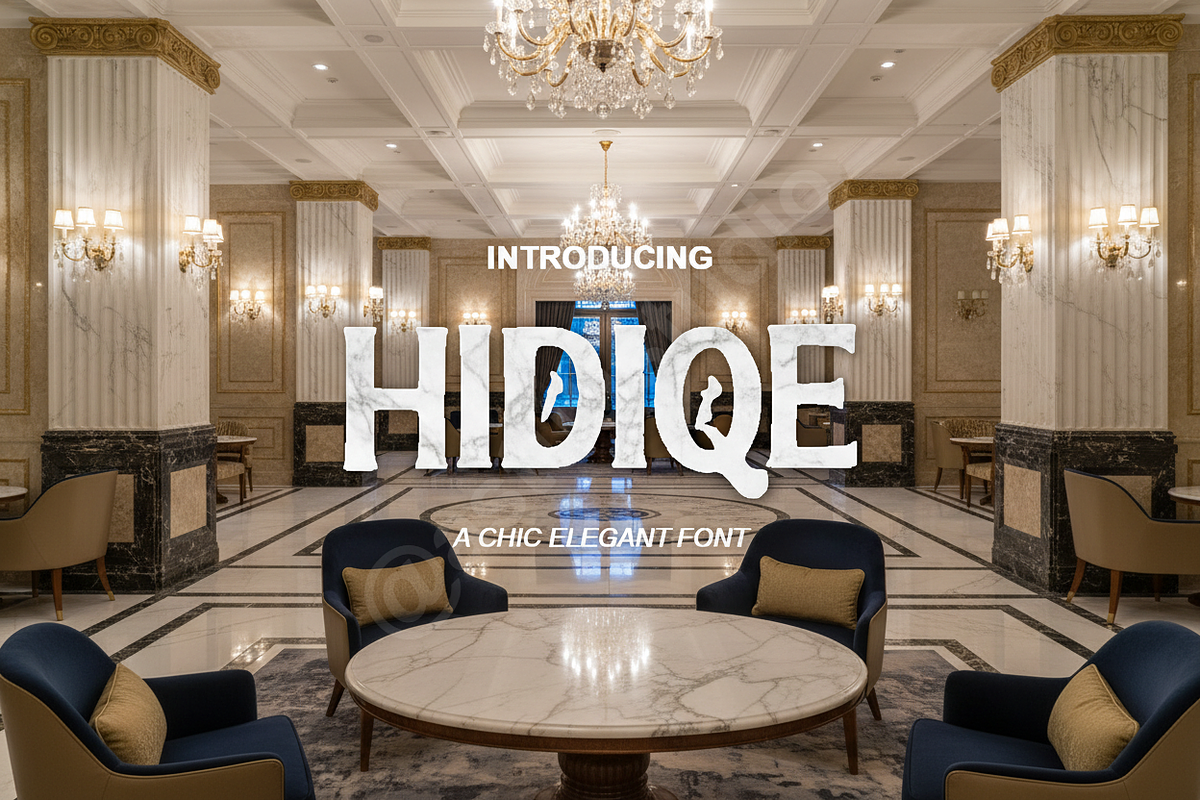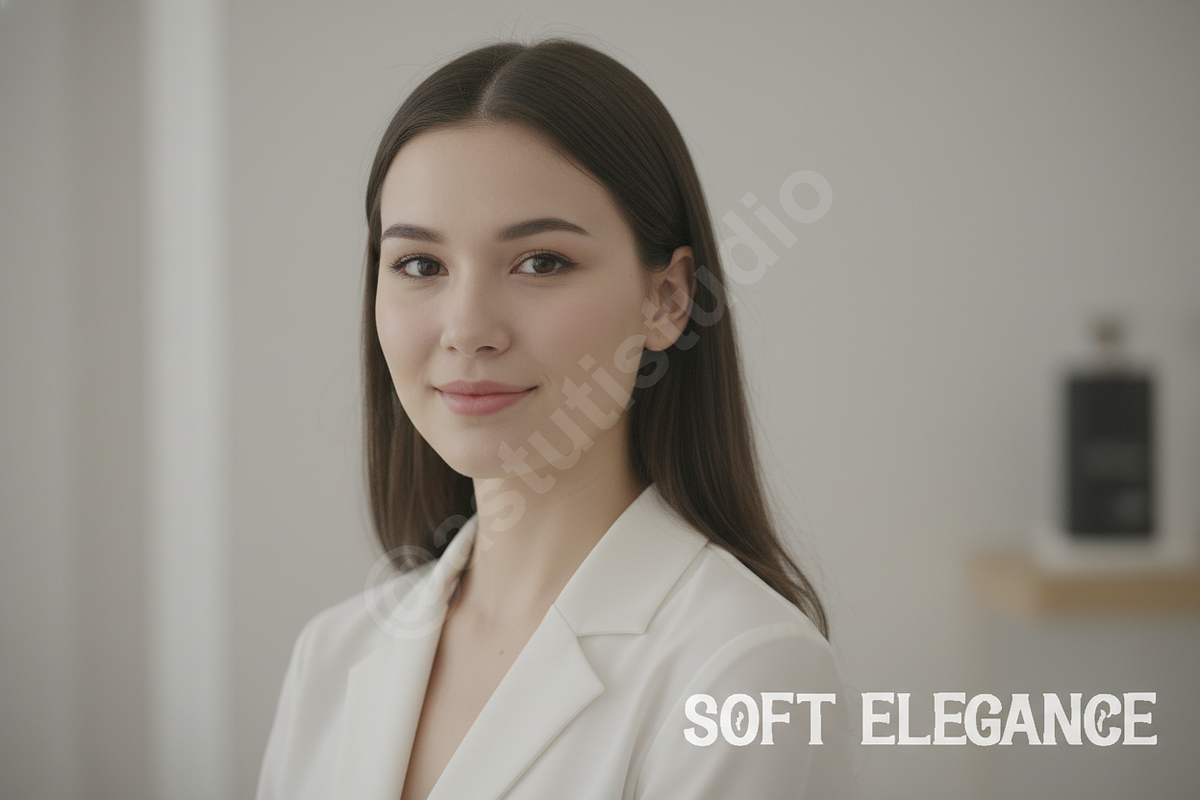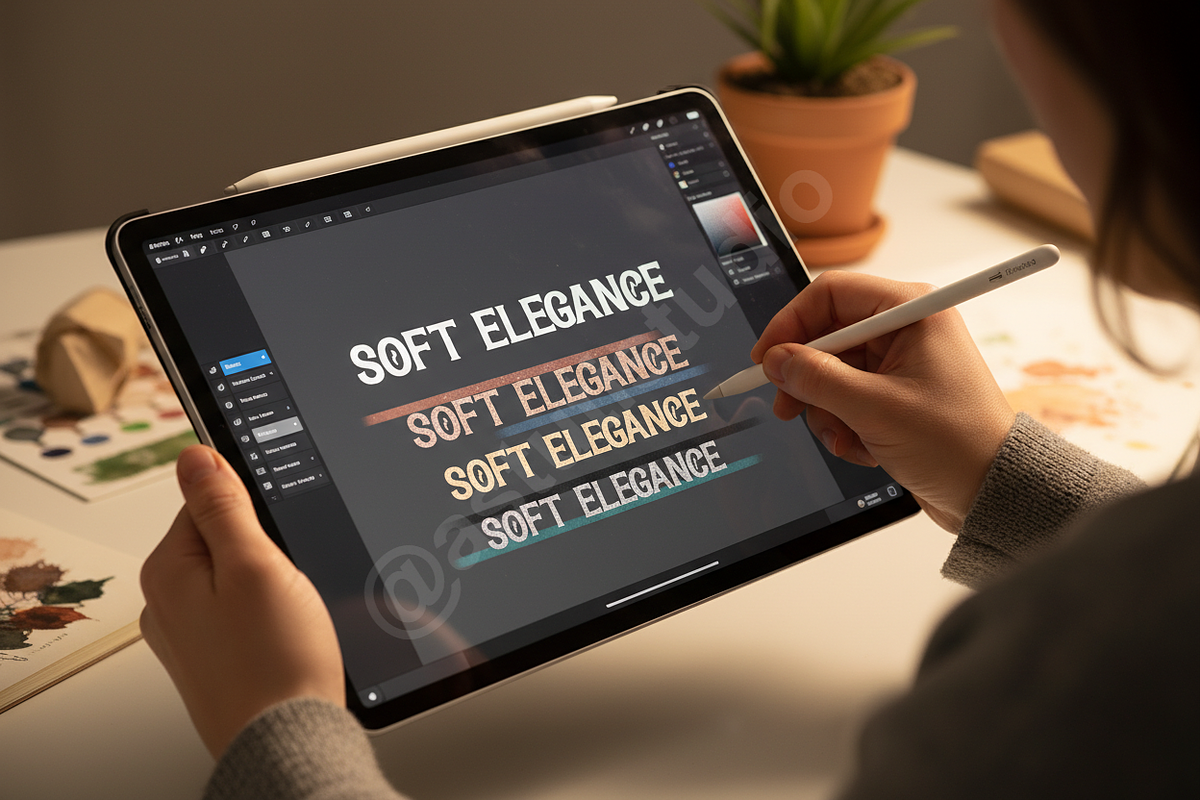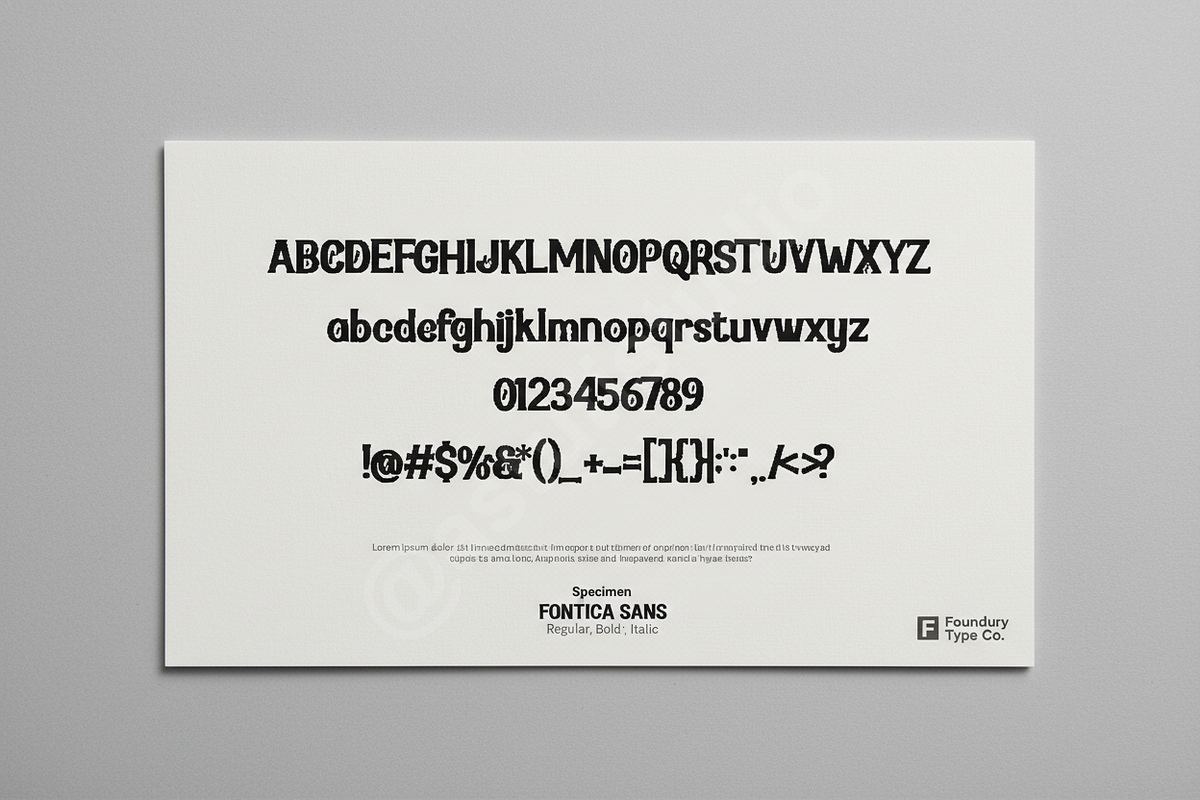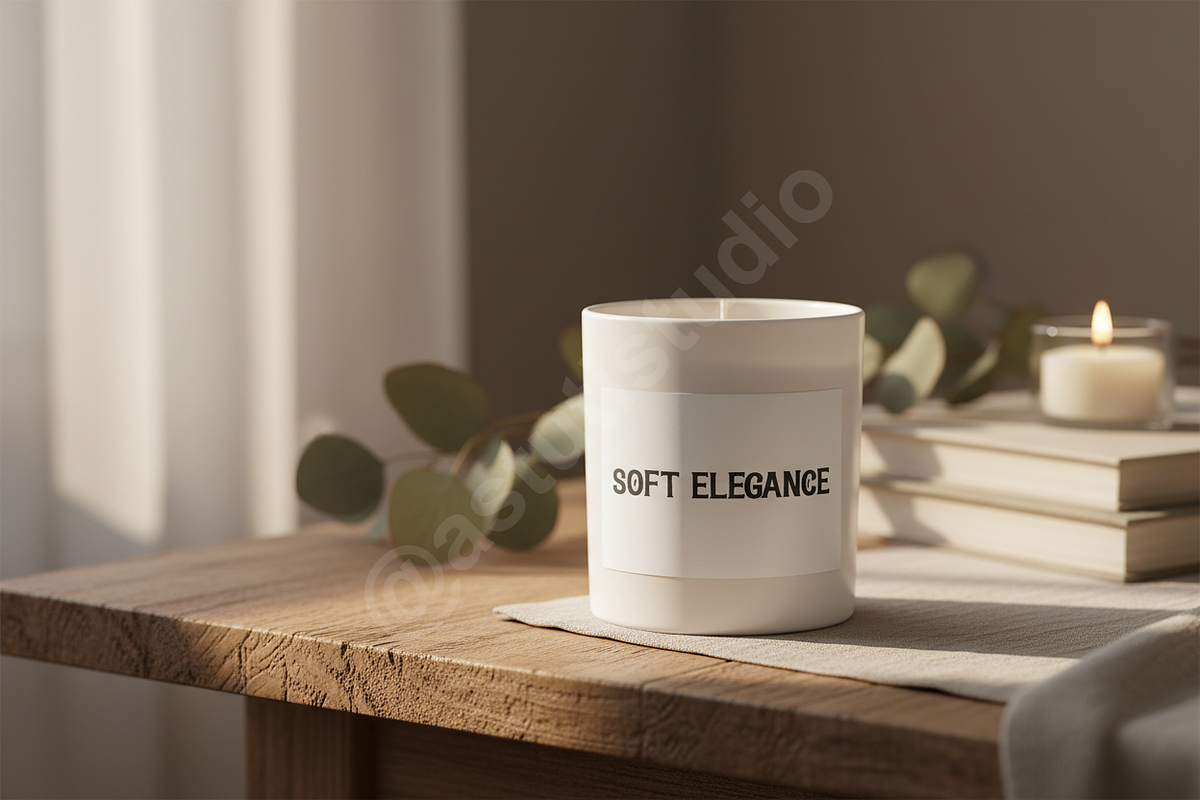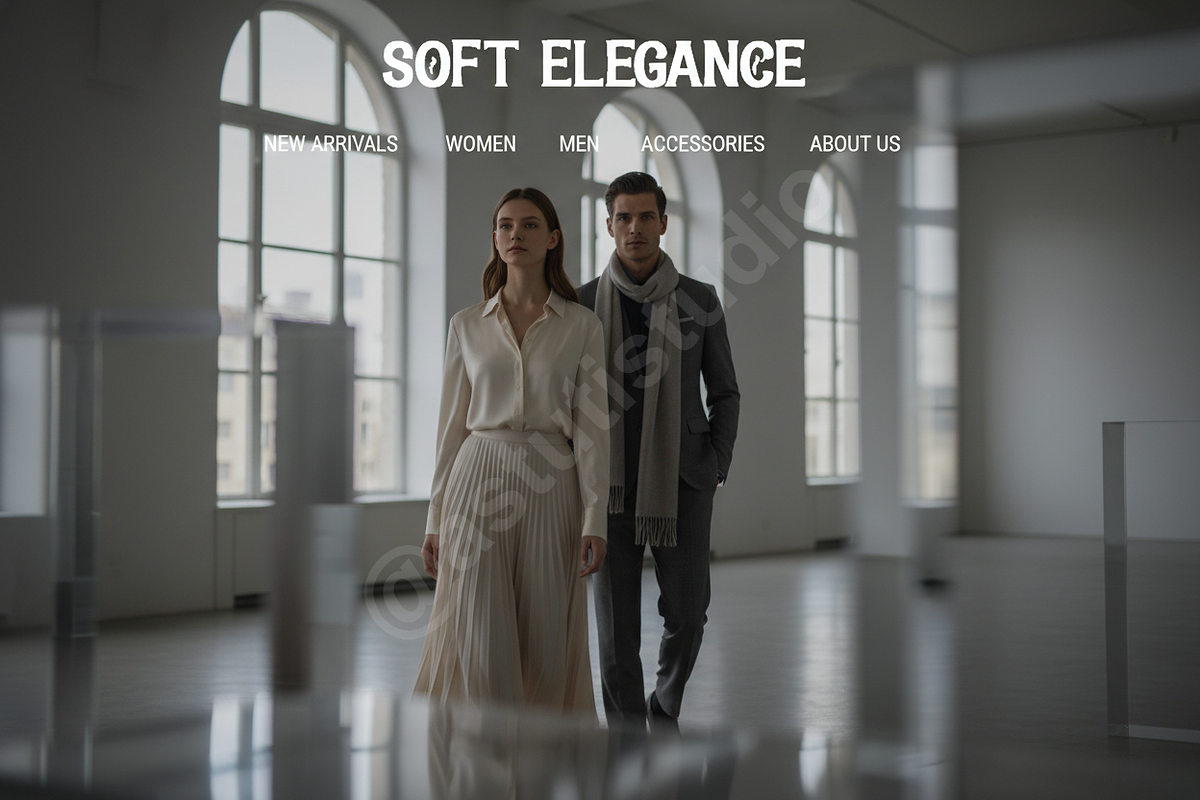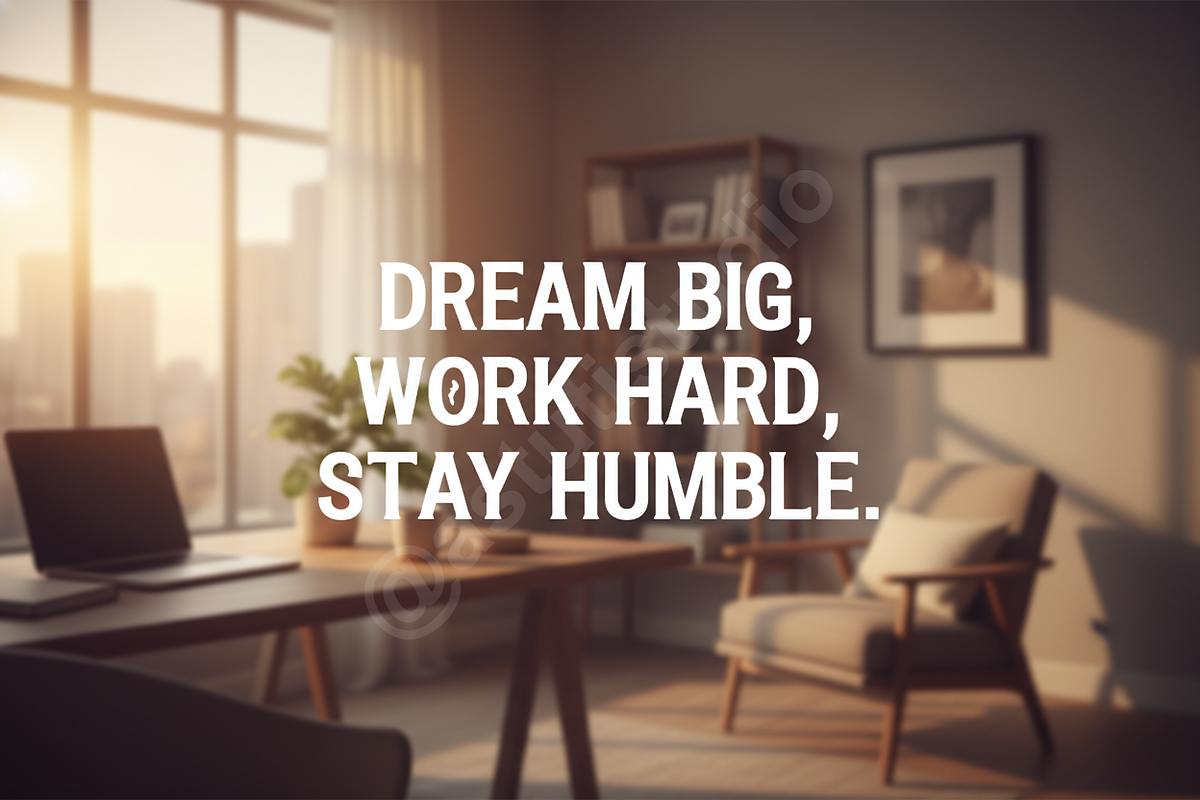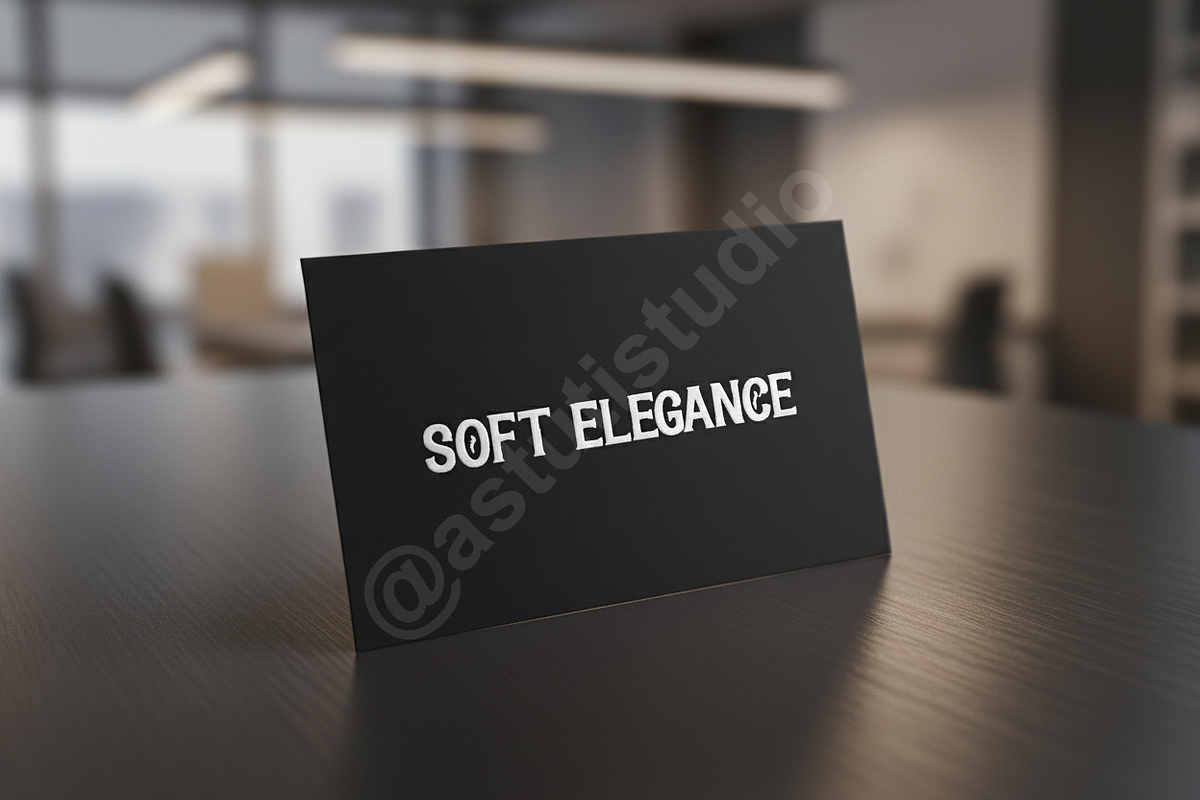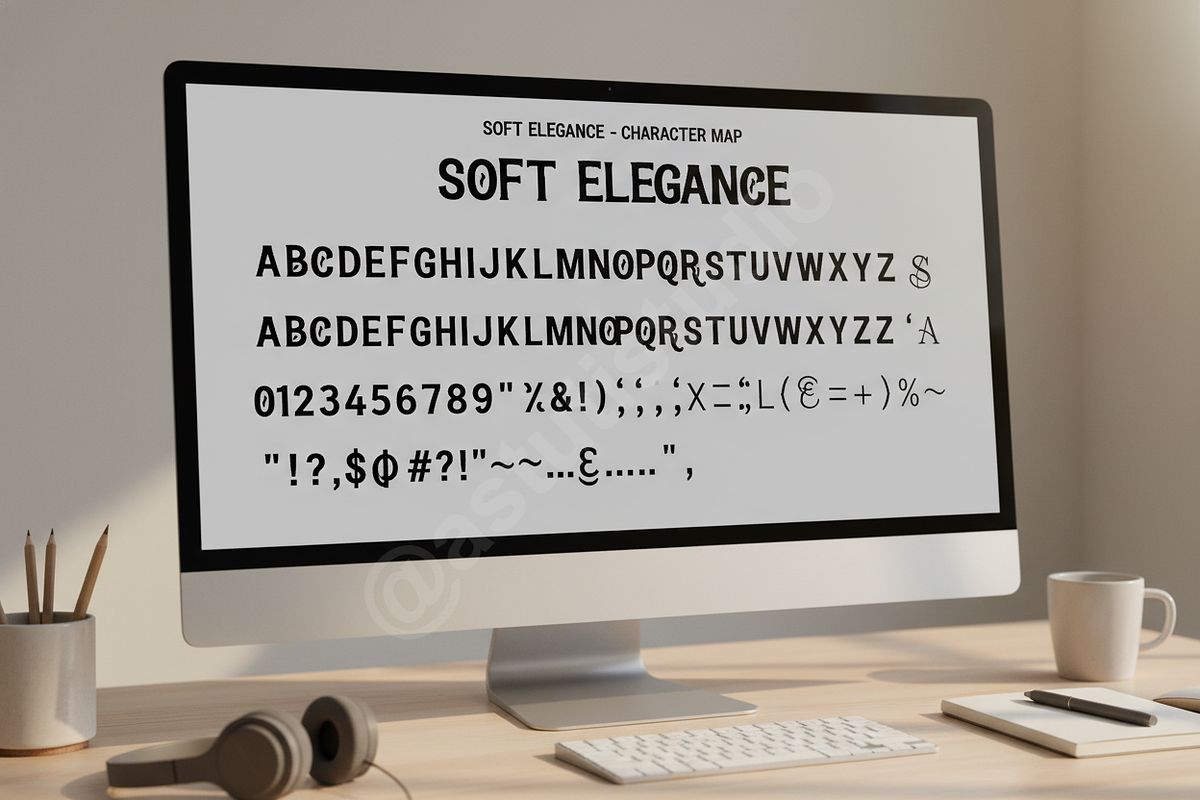
Hidiqe | A Timeless Luxury Serif
Introduction Hidiqe is a sophisticated serif font meticulously crafted for high-end branding and editorial excellence. With its refined curves and balanced proportions, Hidiqe brings an air of quiet luxury to every project, making it the perfect choice for fashion houses, jewelry brands, and upscale lifestyle content. Its clean lines and distinctive personality ensure your message is delivered with prestige and clarity.
- Elegant high-contrast strokes for a premium aesthetic
- Selection of unique ligatures and stylistic alternates
- Full multilingual support for global reach
- Optimized kerning for professional typesetting
- Versatile performance in both display and body text